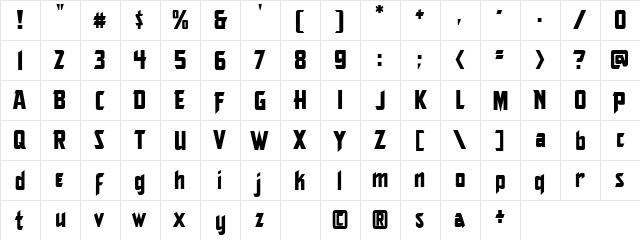
CCTheStorySoFar Regular
Design Context for CCTheStorySoFar Typeface
CCTheStorySoFar is a composed and adaptable typeface that performs quietly and consistently across a wide range of design contexts.